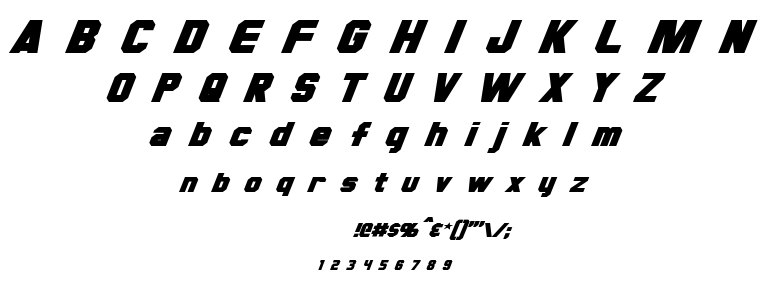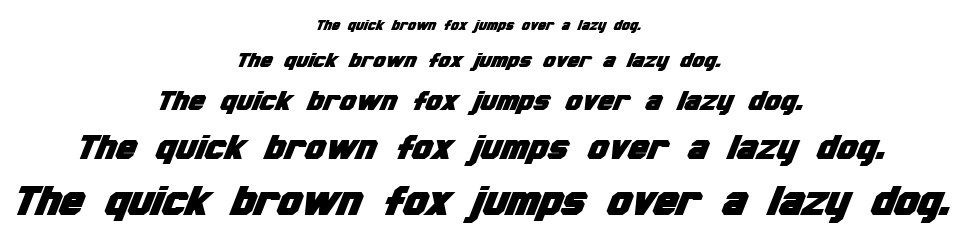
Former “Action Force”, based on the logo of GI Joe. This is a dramatic redo of the font, making it much cleaner, more ‘measured’ and without as many errors.
Adds lower case, accent characters, Euro. Now rendered in both ‘normal’ and ‘oblique’ types.